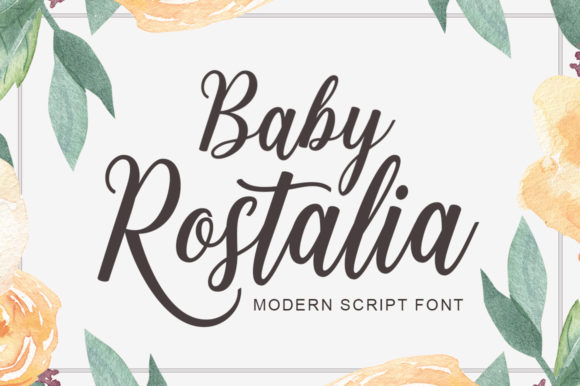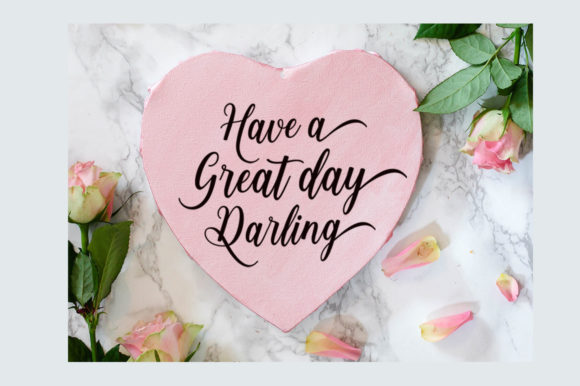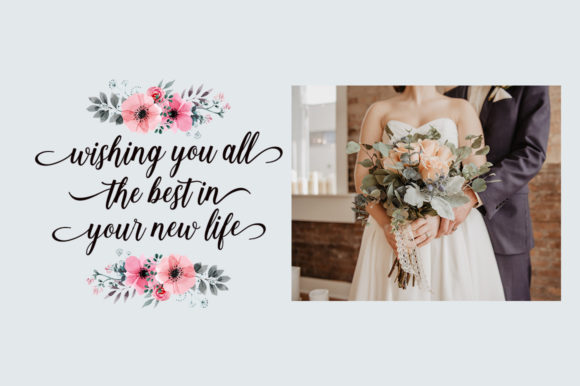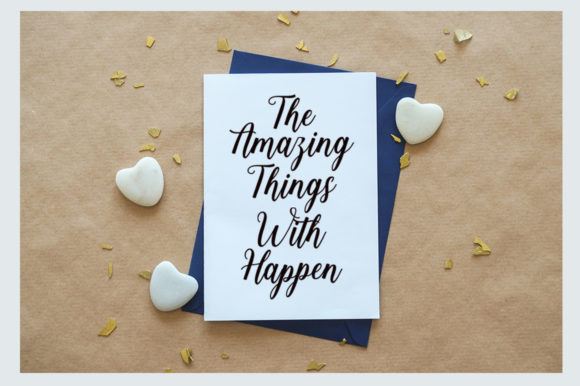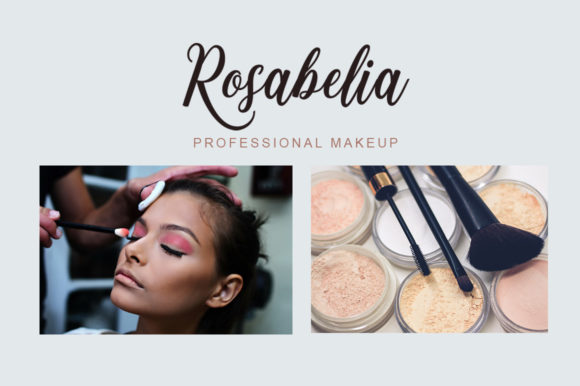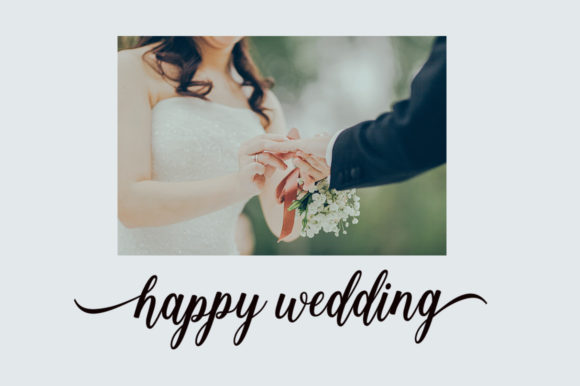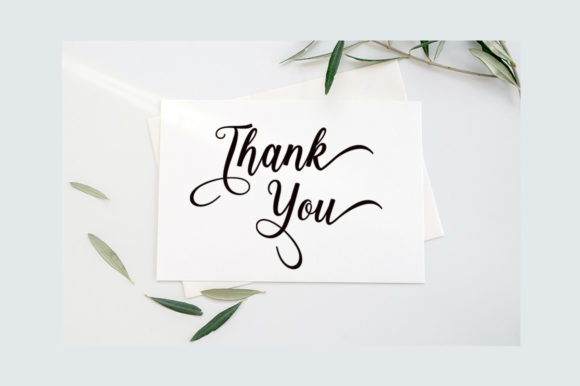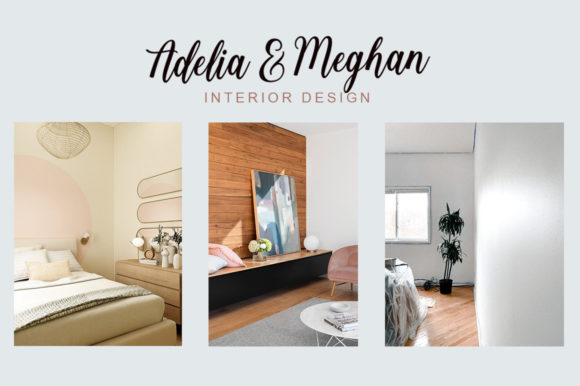
Baby Rostalia Font
About Baby Rostalia Font
Baby Rostalia, a superb handwritten font, emerges as a standout choice for elevating your creative work with its elegant and curvy lines. Its exceptional design makes it a perfect fit for a variety of applications, ranging from product packaging and branding projects to magazine covers, social media graphics, weddings, and expressive text above backgrounds.
The elegance of Baby Rostalia is evident in its gracefully curved lines, adding a touch of sophistication to every character. This font becomes a visual asset that not only conveys your message but also enhances it with a sense of style and charm.
Picture Baby Rostalia on product packaging, where its superb handwritten quality transforms ordinary labels into visually appealing statements. The curvy lines contribute to a unique and elegant presentation, capturing the attention of consumers and leaving a memorable impression.
In branding projects, Baby Rostalia becomes a key element in creating a distinctive identity. Its handwritten charm adds a personal touch, fostering a connection between your brand and its audience. The font’s versatility ensures that it complements various design elements, contributing to a cohesive and visually appealing brand presence.
Magazine covers, with their need for eye-catching visuals, find a perfect ally in Baby Rostalia. The font’s elegant and curvy lines set the tone for the content within, inviting readers to explore the pages with a sense of anticipation.
Social media graphics, where visual appeal is paramount, benefit from the superb qualities of Baby Rostalia. Your posts become more than just information—they become visual narratives, with each character contributing to a cohesive and stylish presentation.
In the romantic context of weddings, Baby Rostalia adds a touch of elegance to invitations and other stationery. The curvy lines and superb handwritten quality create a sense of romance and sophistication, setting the tone for the special celebration.
As you integrate Baby Rostalia into your creative projects, may its superb handwritten charm become a catalyst for making your work stand out. Let the elegant and curvy lines of this font elevate your designs, turning them into visually captivating expressions across various mediums.